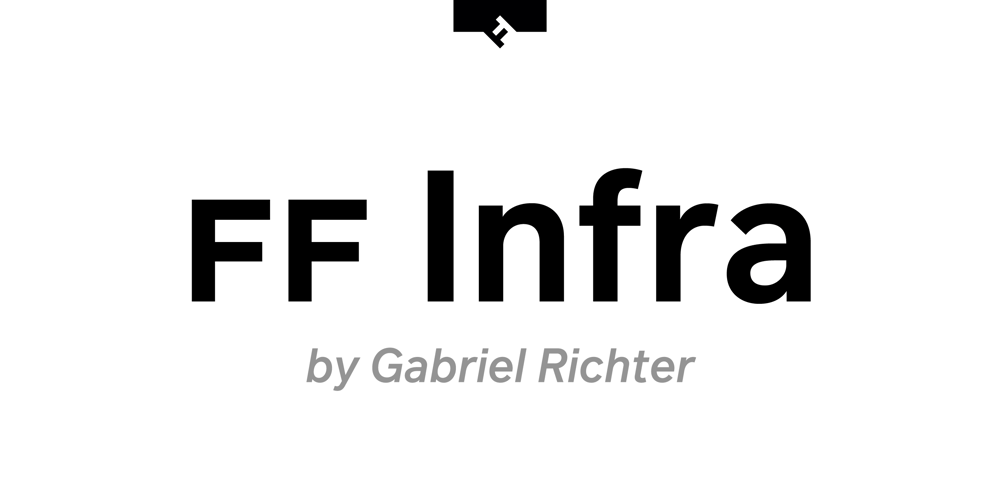
FF Infra Font Family was designed by Gabriel Richter and published by FontFont. FF Infra contains 20 styles and family package options. FF Infra™ is a fresh take on the robust sans serif typefaces of the early 20th century. Drawn by Gabriel Richter, it’s a friendly, inviting – and multi-talented family. Whether long blocks of editorial text, or snackable copy in web pages and blog posts, FF Infra’s 20 typefaces are easy on the eyes in both print and digital environments. The design also performs as well at petite sizes, as it does at supersized display settings. Pair FF Infra with an old style or Didone serif design and you’ll have powerful and distinctive typographic pages! FF Infra is available in 10 weights, ranging from a delicate light to a commanding black, each with an italic companion. OpenType® Pro fonts of FF infra have an extended character set supporting most Central European and many Eastern European languages, in addition to providing for the automatic insertion of ligatures and fractions. Each font also contains four sets of figures and a bevy of arrows that are ideal for wayfinding and similar info-graphic projects. A generous lowercase x-height, open counters and subtle graduations between family weights, make for a family that is at home in a wide range of sizes, and comfortable in everything from large signage, content for mobile apps, product manuals and full-scale branding projects. In addition, to provide design diversity, Richter drew alternate designs for the a, G and ß. Richter first became interested in fonts and the art of creating typefaces while studying communication design at Düsseldorf University of Applied Sciences. His first designs were experimental, but these lead a position at FontShop International in 2013, where he developed his typeface design skills. A strong background in font production, hinting and font marketing were also part of his FontShop experience. Richter worked as freelance graphic and type designer until he founded übertype in 2017. He also invests back into the type community through the type design courses he teaches at his alma mater. FF Infra is Richter’s first commercial design for Monotype. We’re sure that you’ll find it as versatile and powerful as we do.